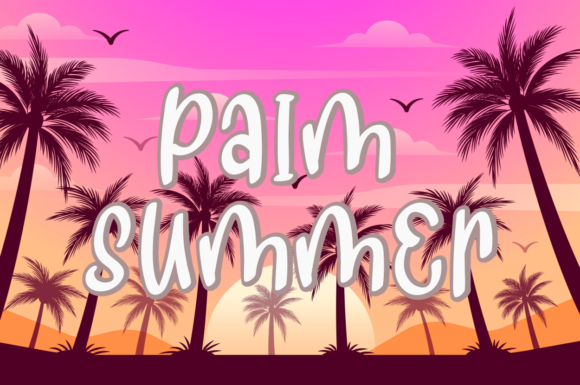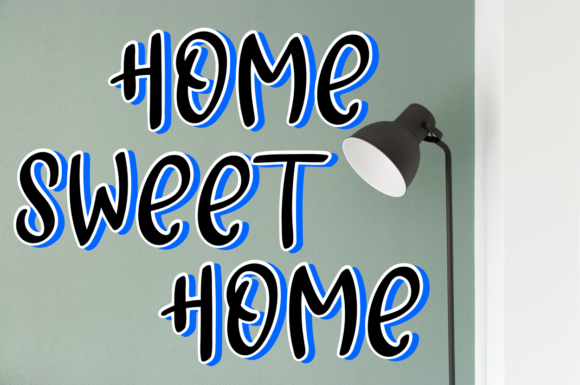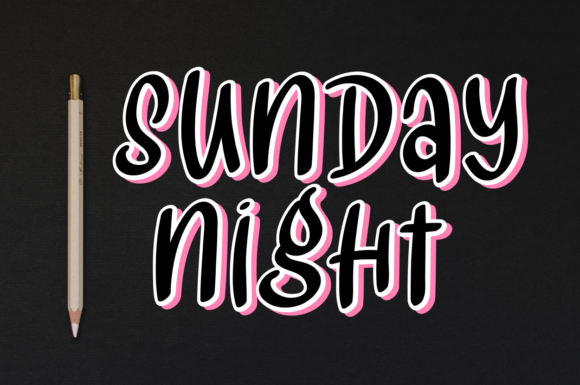
Introducing Florida Desert Font: The Quirky Display Font You Need
Are you tired of using the same old fonts in your designs? Look no further than Florida Desert Font, a playful and adorable display font that’s sure to add a joyful touch to your creations. With its unique and quirky style, this font is perfect for designers and crafters looking to add some personality to their work.
What is Florida Desert Font?
Florida Desert Font is a display font designed to make a statement. Its playful style is reminiscent of a whimsical desert landscape, with letters that seem to dance across the page. This font is perfect for creating eye-catching social media posts, beautiful stationery art, and more. Whether you’re a professional designer or a crafty DIY enthusiast, Florida Desert Font is sure to become a favorite in your collection.
Why You’ll Love Florida Desert Font
So, what sets Florida Desert Font apart from other fonts out there? Here are just a few reasons why you’ll fall in love with this adorable font:
- Playful Style: Florida Desert Font has a unique and playful style that’s sure to add a touch of whimsy to your designs.
- Versatility: This font can be used for a wide range of projects, from social media posts to stationery art, and more.
- Easy to Read: Despite its playful style, Florida Desert Font is easy to read, making it perfect for use in a variety of contexts.
- Customizable: With its wide range of uses and applications, Florida Desert Font can be customized to fit your unique design needs.
Uses for Florida Desert Font
So, what can you use Florida Desert Font for? The possibilities are endless! Here are a few ideas to get you started:
- Social Media Posts: Add a playful touch to your social media posts with Florida Desert Font. Perfect for creating eye-catching graphics and announcements.
- Stationery Art: Create beautiful stationery art with Florida Desert Font, including greeting cards, invitations, and more.
- Branding: Use Florida Desert Font to add a touch of personality to your brand. Perfect for creating custom logos, business cards, and more.
- Crafting: Florida Desert Font is perfect for crafty DIY enthusiasts. Use it to create custom signs, banners, and more.
Tips for Using Florida Desert Font
Here are a few tips for getting the most out of Florida Desert Font:
- Experiment with Colors: Florida Desert Font looks great in a variety of colors. Experiment with different hues and combinations to find the perfect look for your design.
- Play with Pairings: Florida Desert Font pairs well with a variety of other fonts. Try pairing it with a bold font for a striking contrast, or with a script font for a more elegant look.
- Don’t be Afraid to Get Creative: Florida Desert Font is a versatile font that can be used in a wide range of contexts. Don’t be afraid to get creative and try new things!
Florida Desert Font is a quirky and adorable display font that’s sure to add a joyful touch to your designs. With its playful style, versatility, and ease of use, this font is perfect for designers and crafters looking to add some personality to their work. Whether you’re creating social media posts, stationery art, or more, Florida Desert Font is the perfect choice. So why wait? Download Florida Desert Font today and start creating!